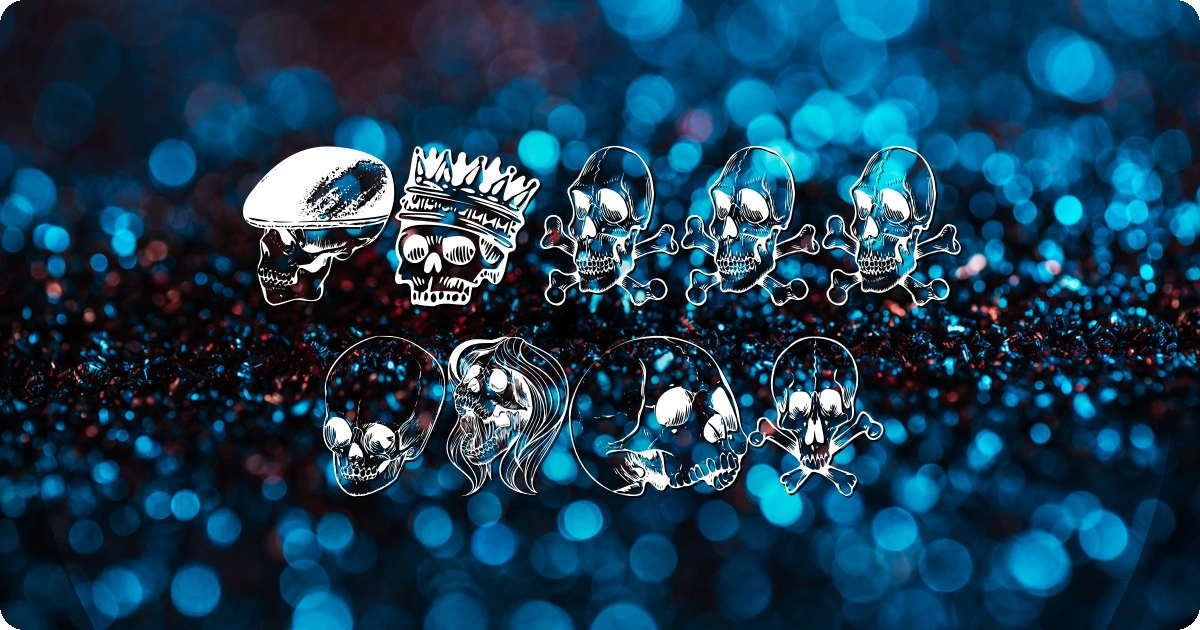
Today we are going to introduce one of the stunning typefaces Skull Font which belongs to a display font family. It has an eye-catchy texture and incredible style that would be perfect for many amazing projects. It has been used by many famous designers and got huge fame all around the world.
The marvelous typeface Skull Font was designed by one of the famous graphic designer billy argel. he created this font in a new style with a creepy appearance that makes it more interesting and attracts a large audience.
It comes in uppercase letters, lowercase letters, symbols, punctuation, numbers, and icons. It has one regular style with a complete set of characters. You can make this font online as its generators are available that can be used without installing it into your system.
Here is a picture of this amazing style Skull Font that has a bold appearance and modern style. It would be perfect for your project.
If we talk about the usage of this amazing Skull Font then you know it has a great name all over the world. It has one of the most interesting and appealing typefaces that can be used in any type of display and printing project. It has been used by many designers and fulfills the requirement of the clients.
You can use this wonderful style font in your projects like posters, banners, logos, movies, flyers, headings, layouts, titles, invitation cards, t-shirt designs, homeware designs, and many more. It has bold text that can be seen from distance and is used in every type of screen project whether it’s a small screen or a big screen.
Skull Font can be suitable for advertisement, product packaging, banners, web designing, app development, blogging, educational institutes, and book cover pages. It is free for any type of personal project. This font can be used with slash display font. you can give your ideas a creative look by using this TrueType.
What is the Skull Font?
It is a display font that has a complete set of characters. It has unique nature and elegant texture that can be used in many projects.
Who designed the Skull Font?
The marvelous typeface Skull Font was designed by one of the famous graphic designers Billy Argel.
What are the uses of the Skull typeface?
It can be used in posters, logos, tattoos,  movies, magazines, advertisements, and brand projects.